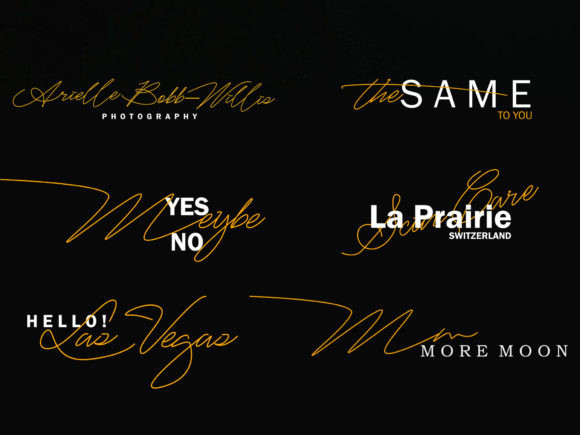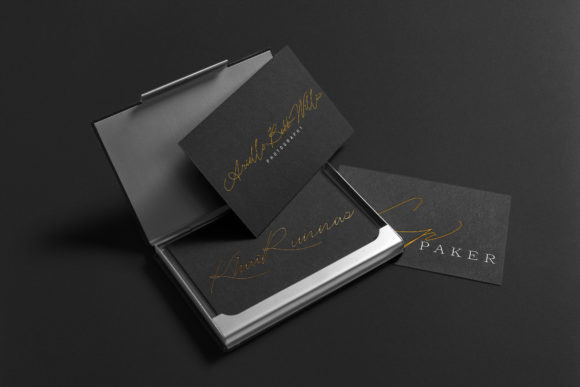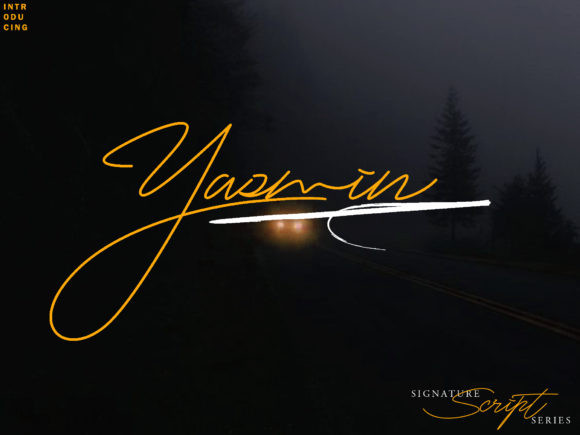
Yasmin Font
Yasmin is a light, delicate and mysterious script. Its extraordinary swashes make it perfect for the use in branding or advertising projects.